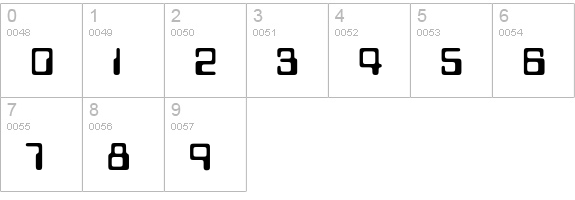
Data Seventy Plain is a sleek and modern font that exudes professionalism and sophistication. With its clean lines and balanced proportions, this typeface is perfect for a wide range of design projects, from corporate branding to editorial layouts. The simple yet stylish letterforms make it easy to read while adding a touch of elegance to any text. What sets Data Seventy Plain apart is that it is not only visually appealing but also free for anyone to use. Whether you're a designer working on a client project or a student creating a presentation, this font is a versatile tool that will elevate your work. You can download Data Seventy Plain for free at FontsMarket.com, making it accessible to anyone looking to add a touch of class to their designs.